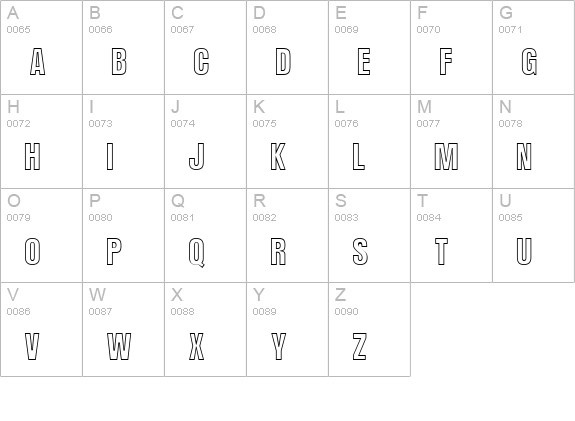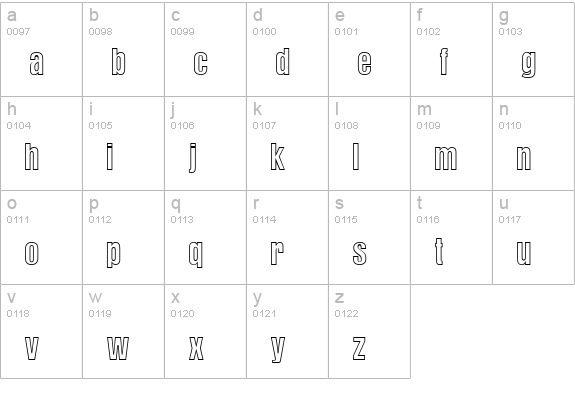
AdvertisersOutline-Regular Font Details
AdvertisersOutline-Regular is the standard, neutral variant in the AdvertisersOutline typeface family \xE2\x80\x94 well suited to general body text, paragraphs, and standard typographic work.
AdvertiseOutline-Regular font is a sleek and modern typeface that captures attention with its clean lines and contemporary style. Perfect for creating eye-catching designs, this versatile font is ideal for advertising materials, posters, flyers, and more. The bold yet elegant letterforms make a statement while maintaining readability, ensuring your message stands out. And the best part? AdvertisersOutline-Regular font is completely free to download at FontsMarket.com. Don't miss out on this opportunity to enhance your projects with a high-quality font that is both professional and stylish. Download now and elevate your designs with AdvertisersOutline-Regular!